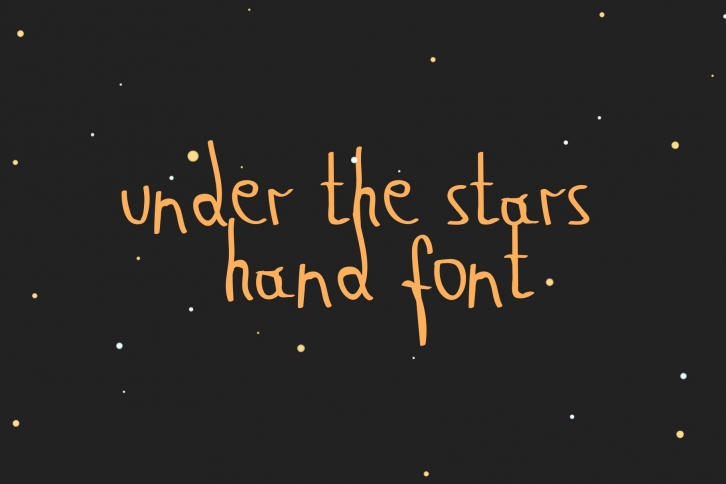
​​​​​​​We proudly present a New Handwriting Font is called - uts hand. Looks like handwriting.Use this font for your amazing works. Include a-z, A-Z, 0-9 and Batch symbols.